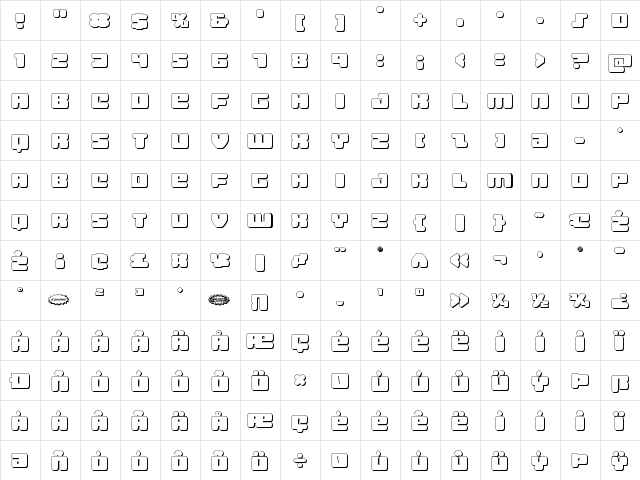
Hula Hoop Girl 3D Regular
Design Context for Hula Hoop Girl 3D Typeface
Hula Hoop Girl 3D is a composed and adaptable typeface that performs quietly and consistently across a wide range of design contexts.